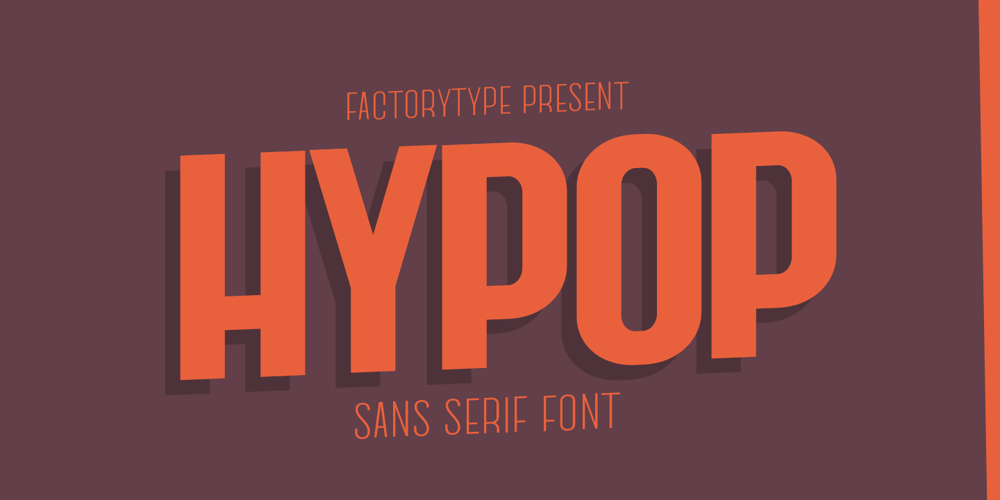
Hypop Font Family was designed by Wahyu Rahmawan and published by Factory738. Hypop contains 10 styles and family package options. HYPOP is a strong and condensed sans serif font family with a nostalgic vibe. Combining retro and minimalist elements resulted in an elegant design. The different weights give you a lot of options when it comes to choosing the right typographic color for your project. 5 Weights (Thin, Light, Regular, Medium, Bold, Black) 2 Styles (Regular and Italic) Basic Latin A-Z and a-z Numerals & Punctuation Stylistic Ligatures glyphs Multilingual Support for ä ö ü Ä Ö Ü … Free updates and feature additions Thanks for looking, and I hope you enjoy it.